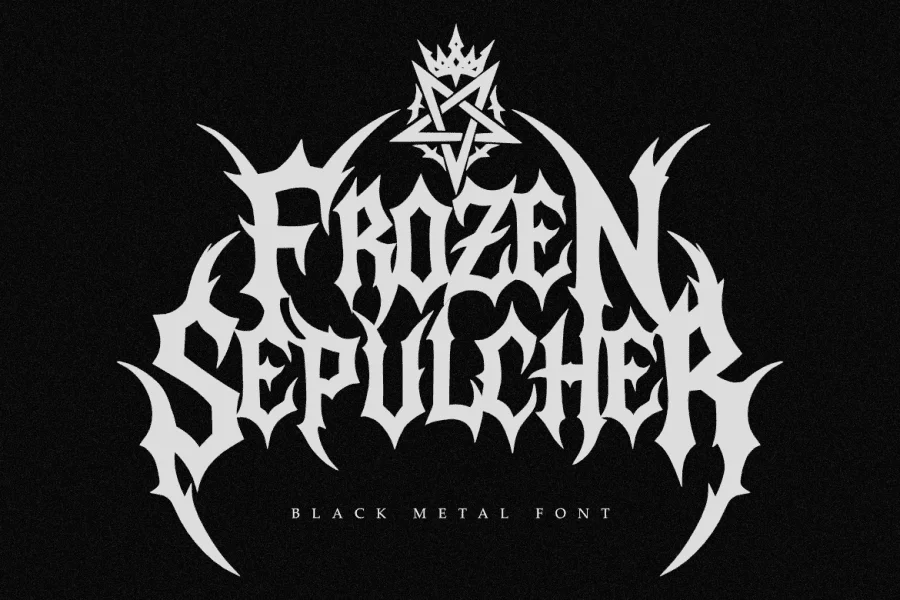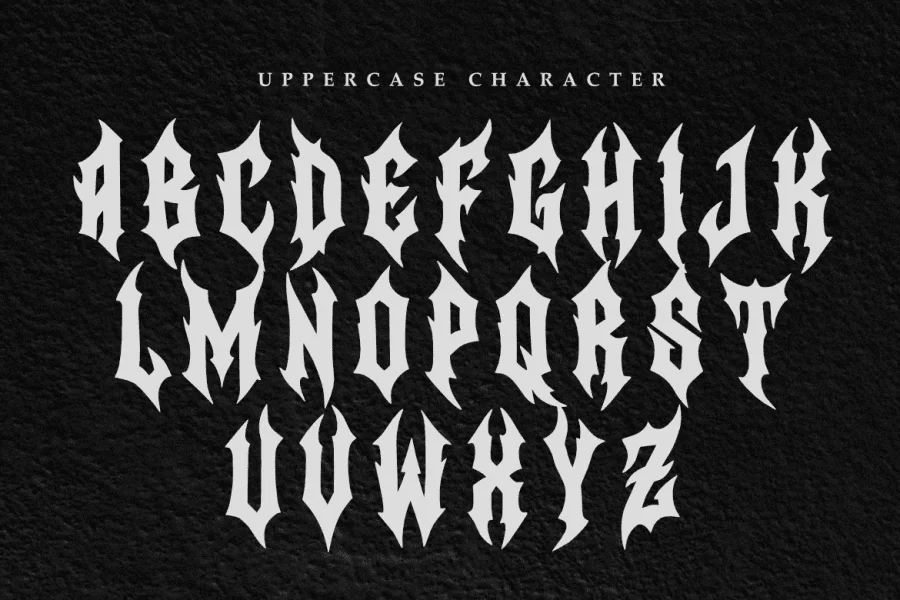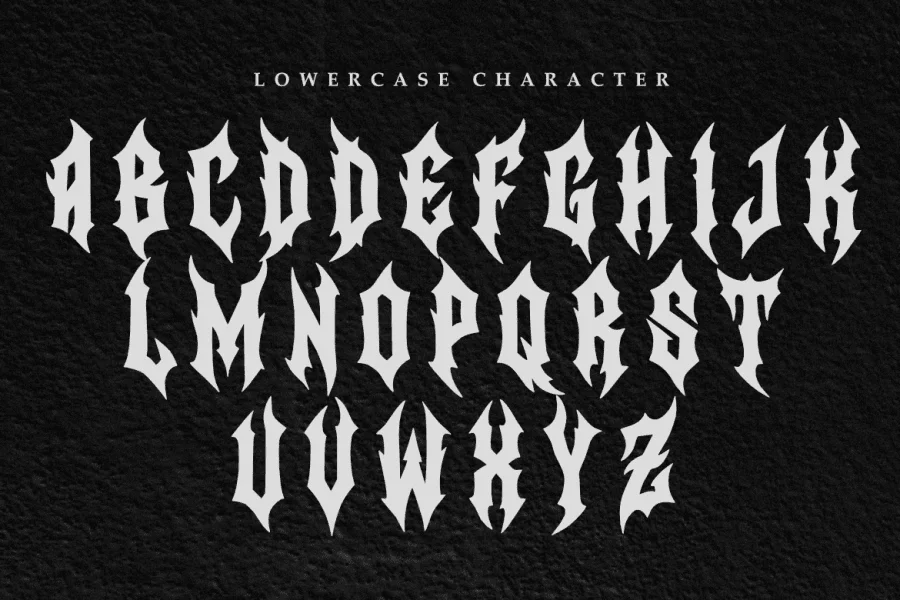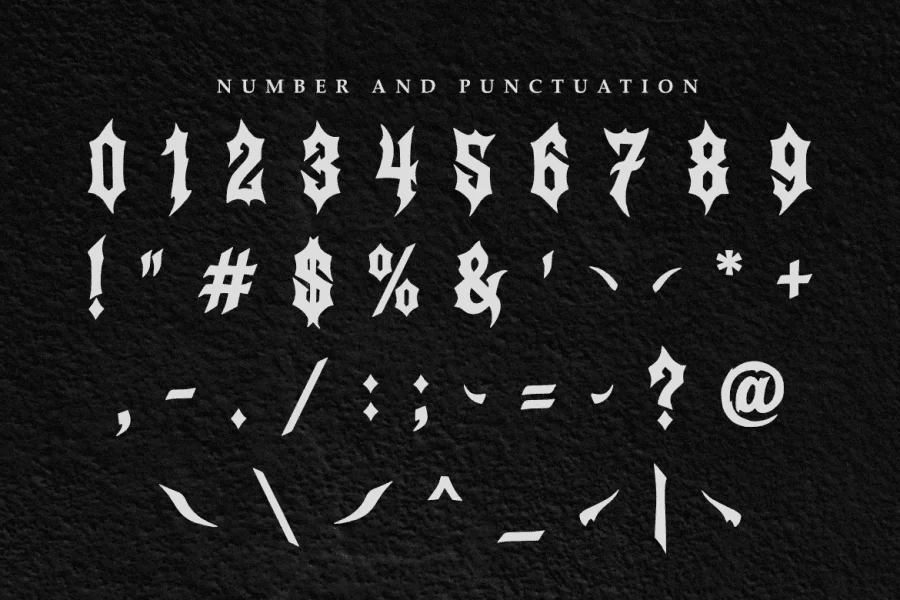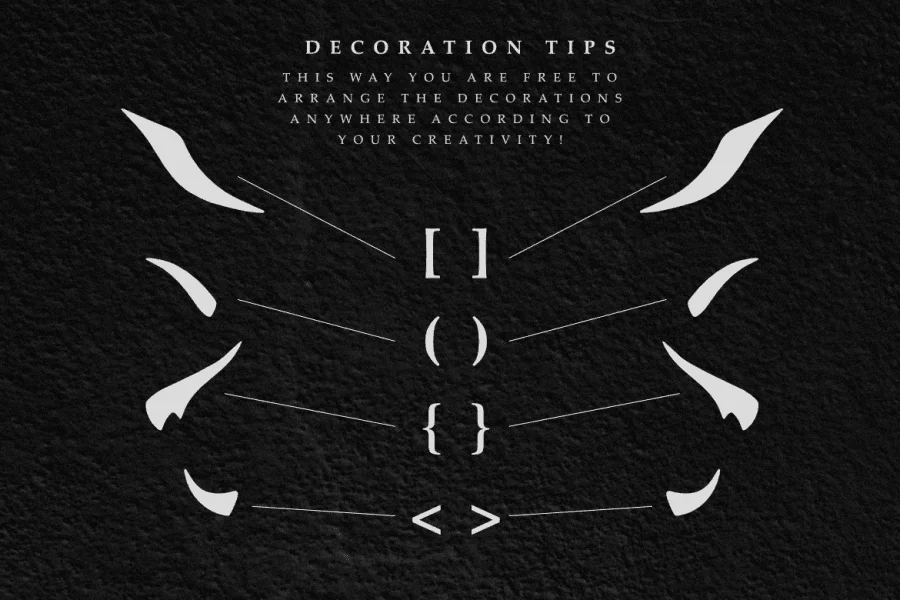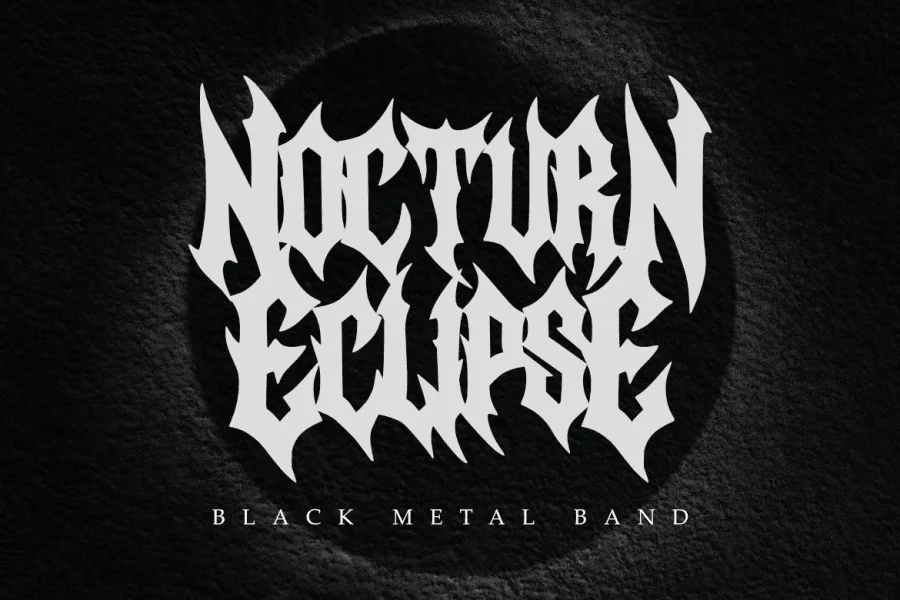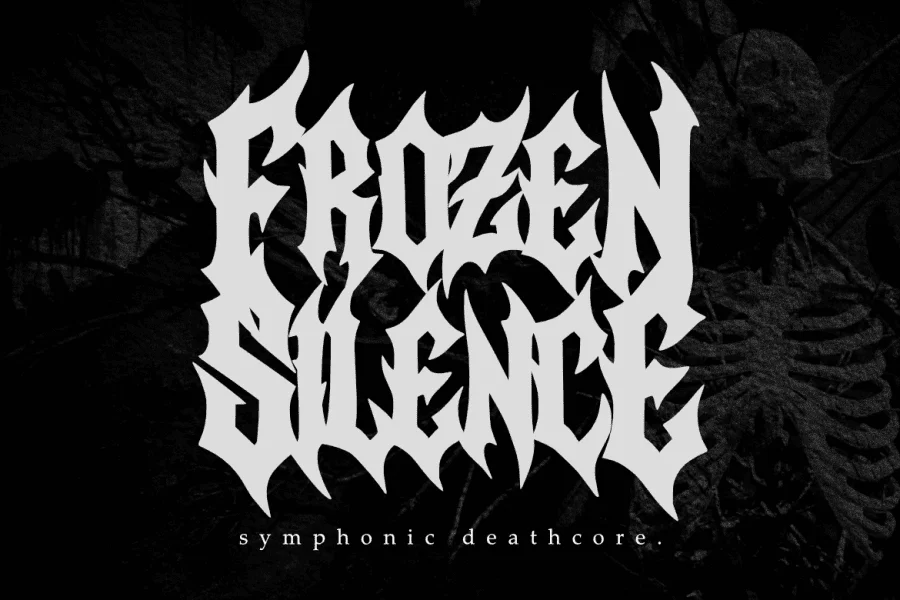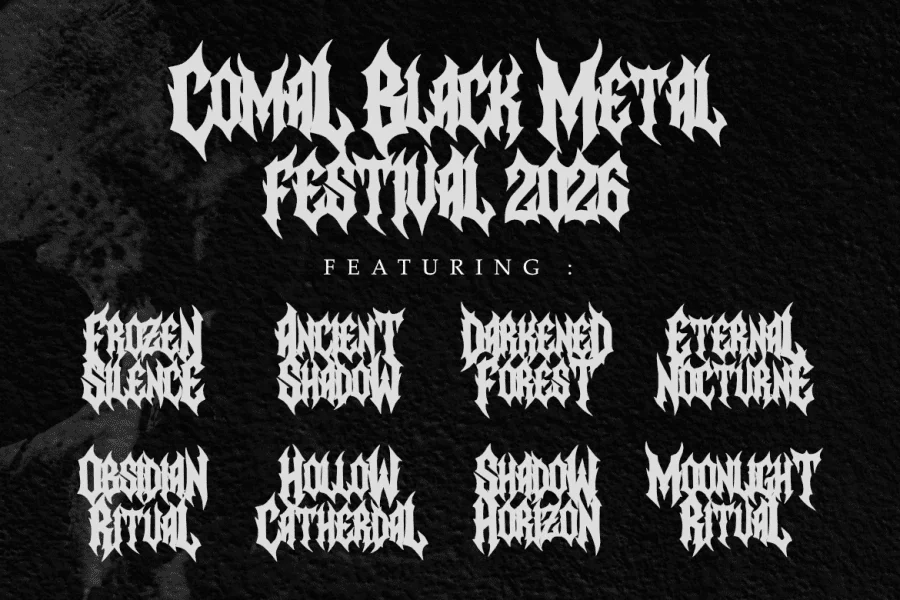
Sinner is a highly stylized, aggressive display typeface drawing inspiration from the raw, sharp-edged aesthetics of extreme music subcultures. Its letterforms are characterized by a dense, compact structure with medium contrast and a vertical, upright posture. The defining feature of this typeface is its thorny, blade-like terminals and spiky, horn-like protrusions that extend outward from the stems, creating a jagged and menacing silhouette. The baseline is intentionally erratic, with sharp descenders and dramatic, sweeping terminal hooks on key characters that anchor the words with a sense of chaotic energy.
This typeface is purpose-built for high-impact visual branding within the heavy metal, deathcore, and alternative subcultures. It is an ideal choice for band logos, album art, merchandise design, and concert posters where a dark, aggressive, and underground aesthetic is required. The inclusion of customizable decorative horn-like glyphs allows designers to frame and extend the typography, making it highly effective for central display titles and bold, graphic-heavy layouts.